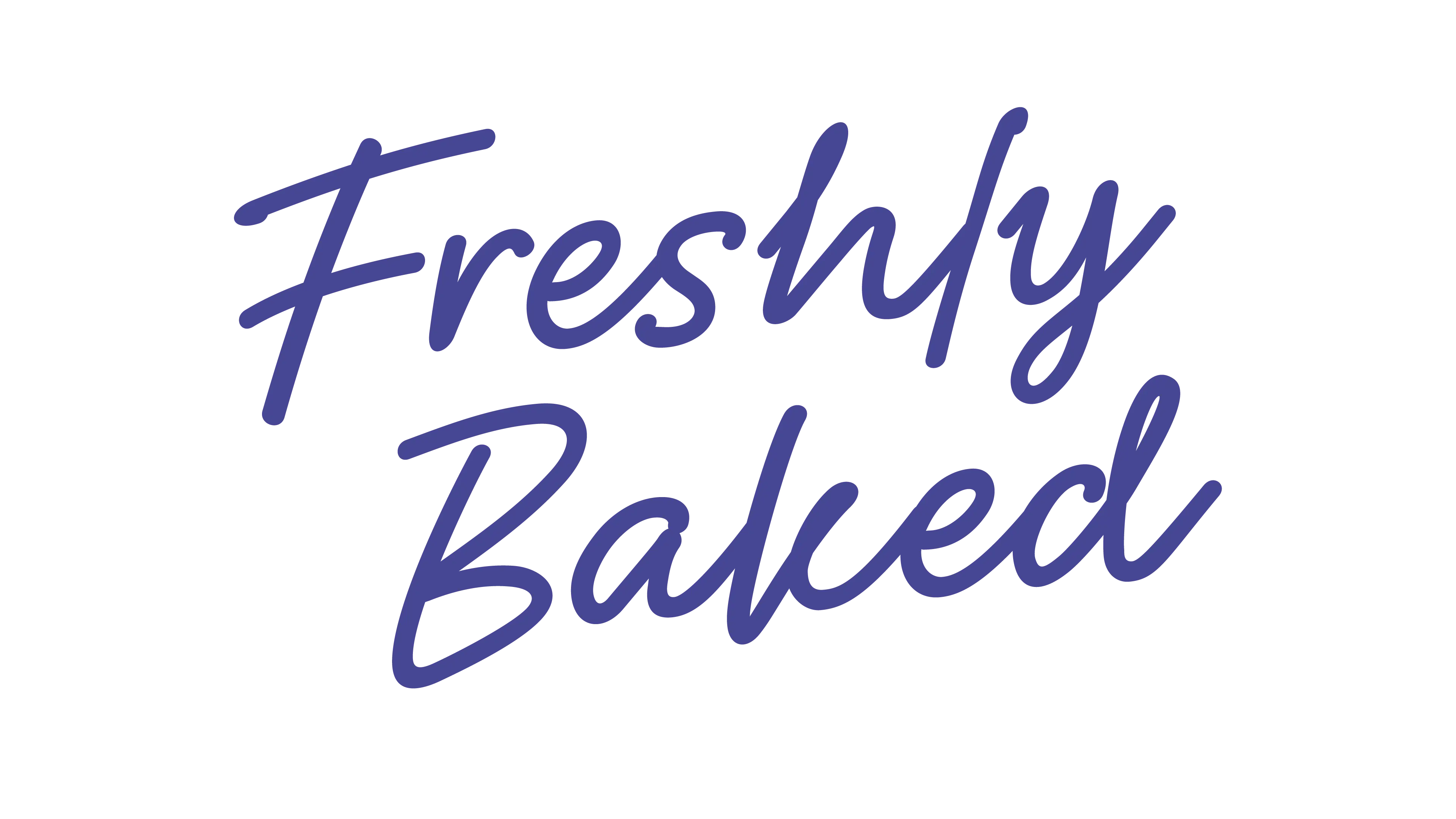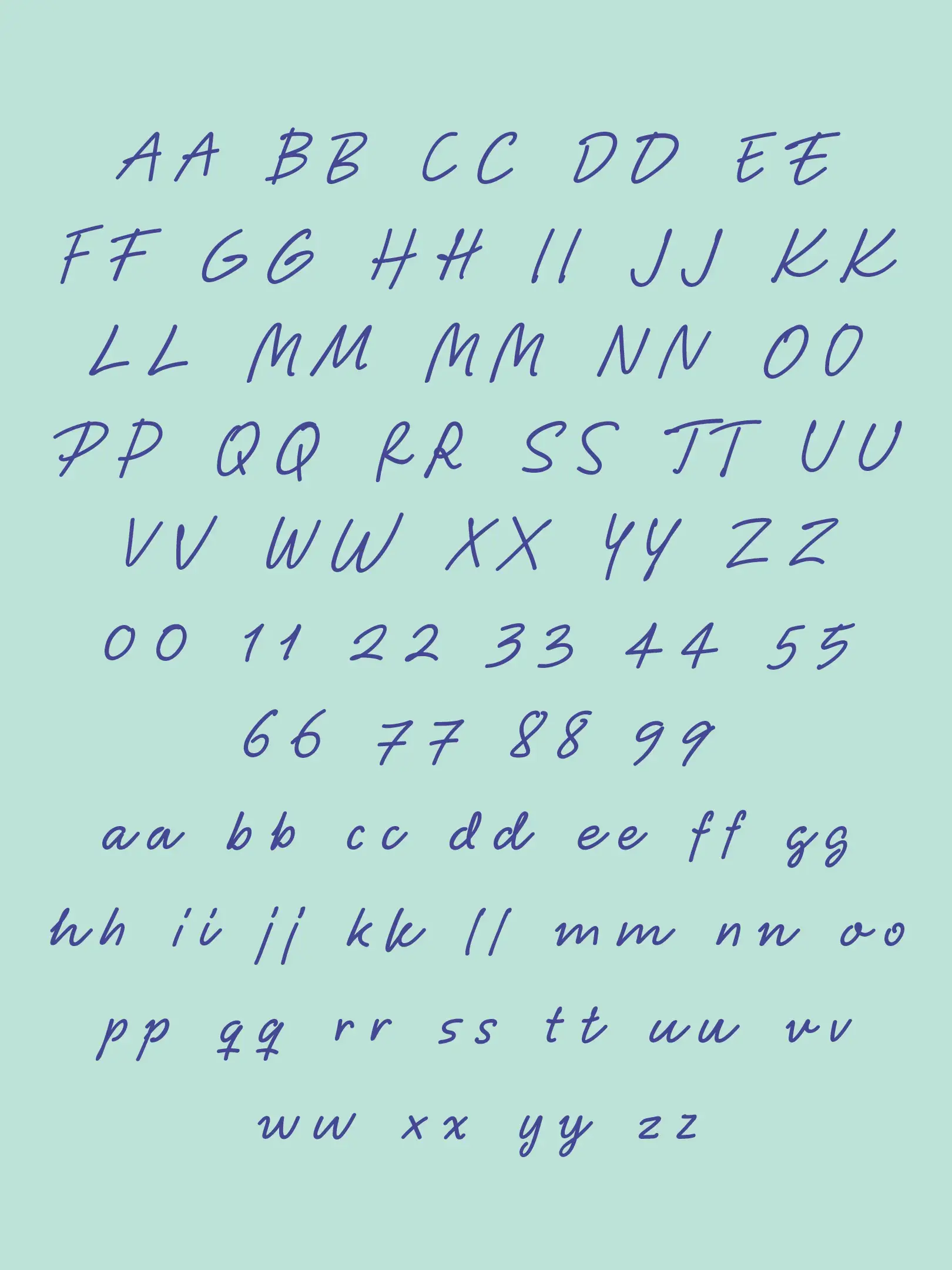
S-market handwriting-inspired script font draws its charm from the casual feel of a handwritten shopping list. Designed to bring a personal and approachable touch to communication, it blends everyday authenticity with style. The S-market Script was created in collaboration with The
Creative Agency Aivan as part of a seamless creative partnership.
Niklas Ekholm
Aivan
SOK